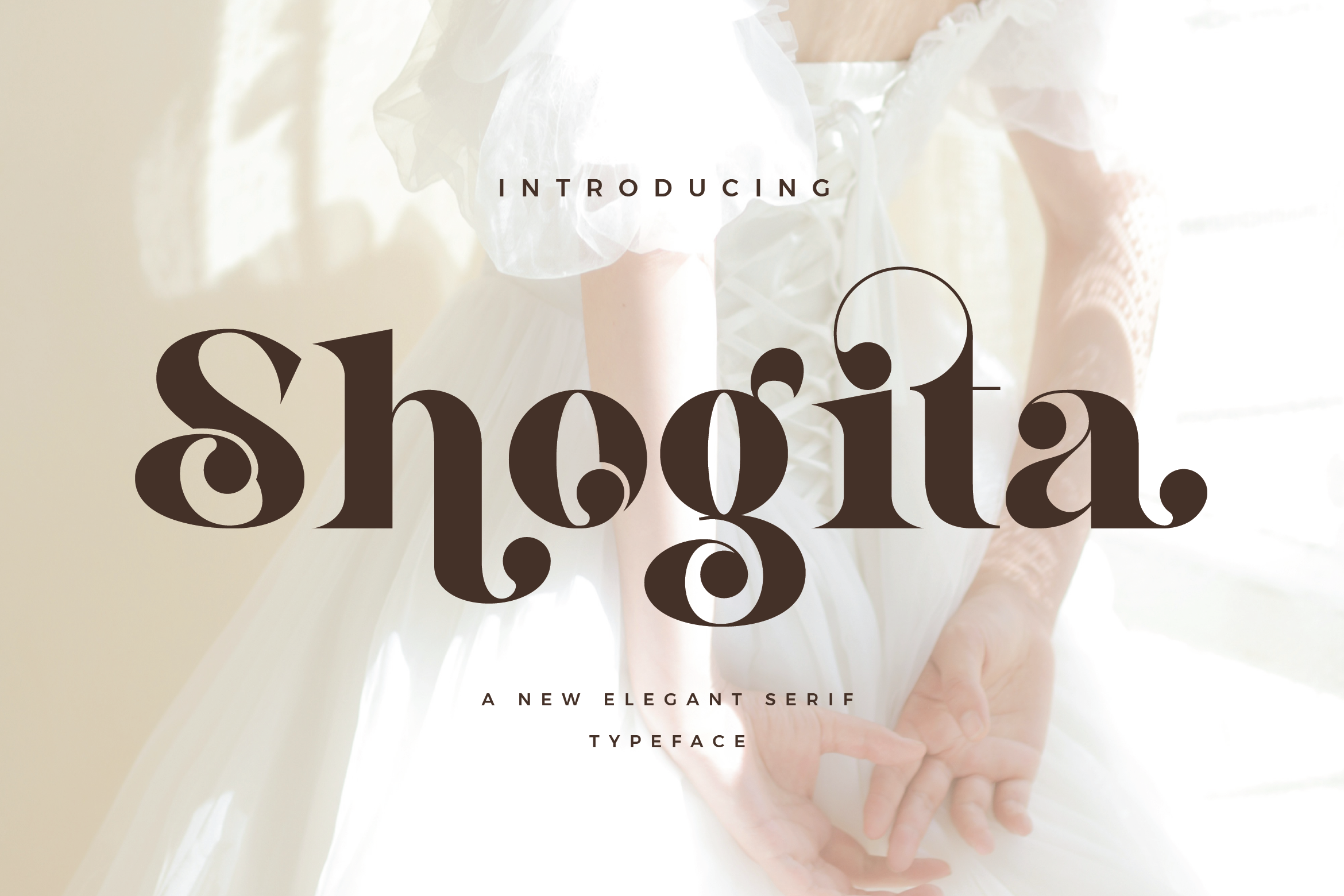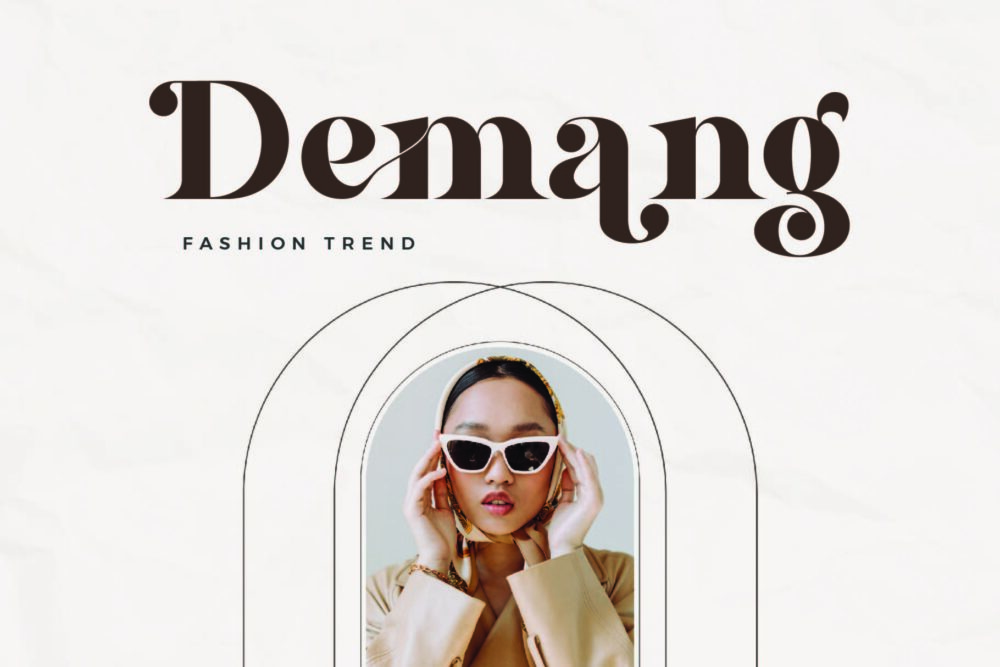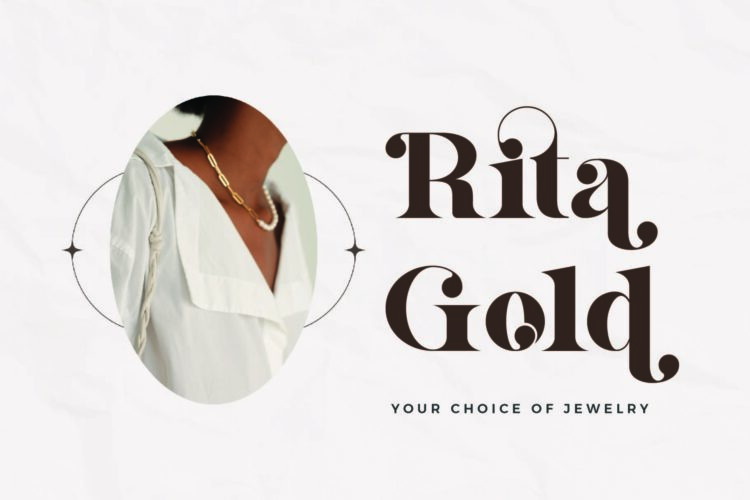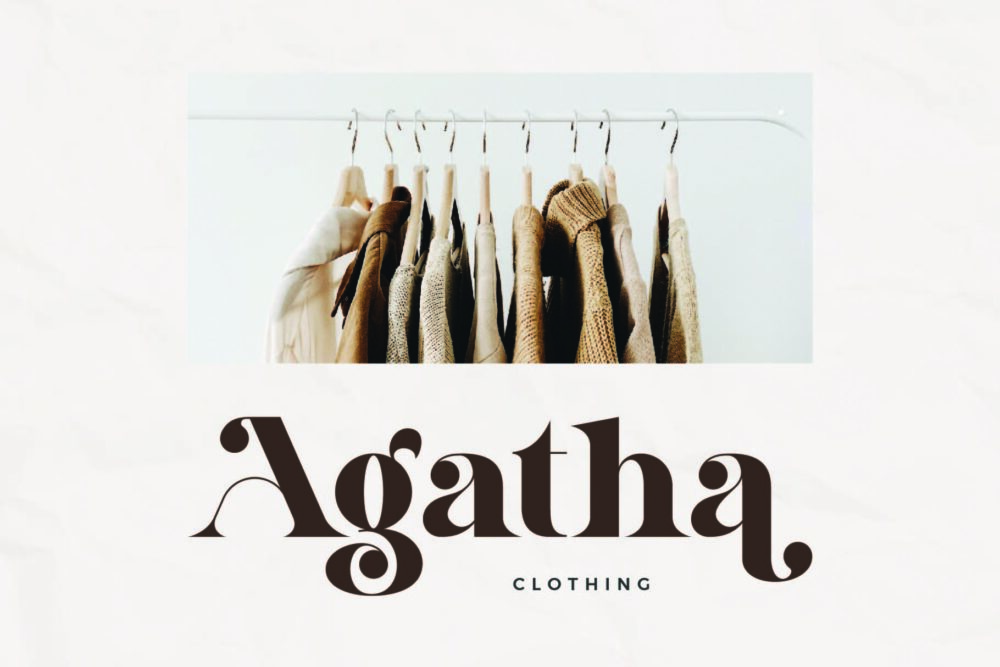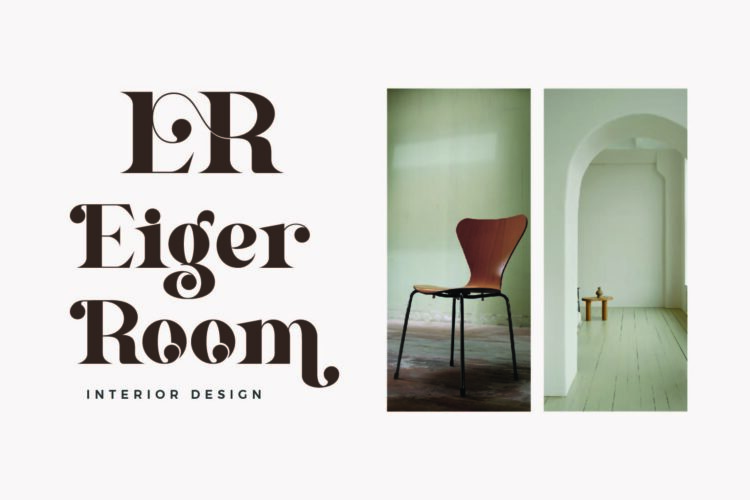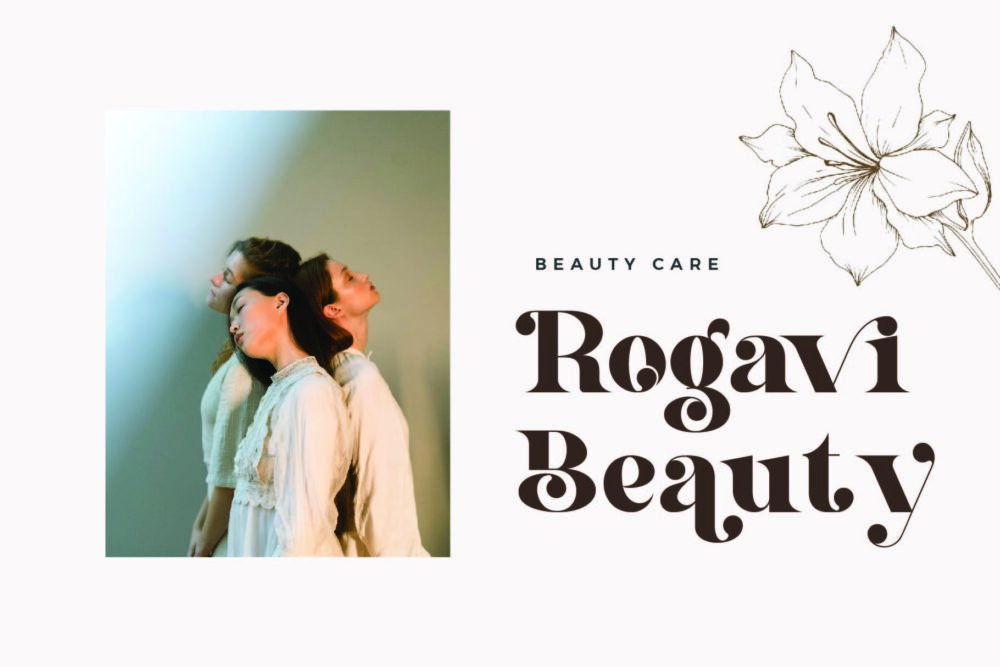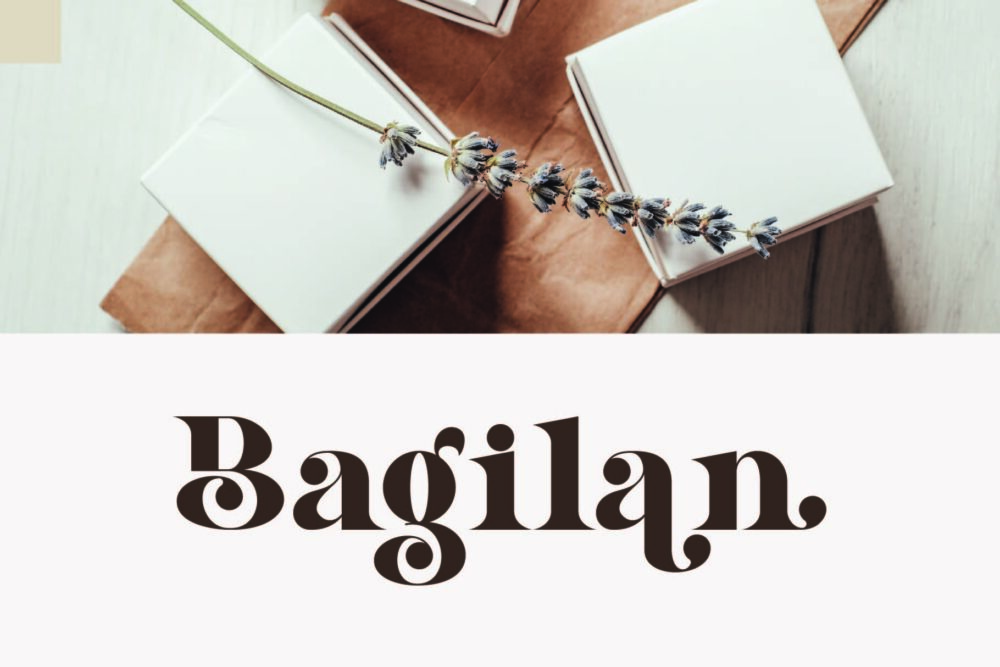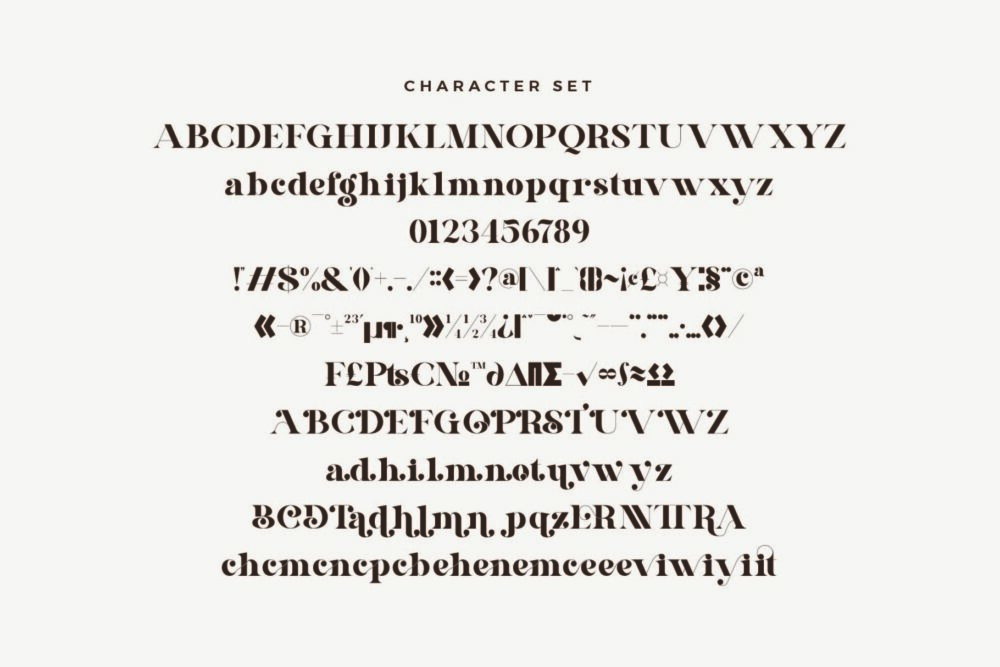
Shogita
Shogita Stylish Ligature Typeface, inspired by the famous minimalist logo perfect for the purposes of designing templates, brochures, videos, advertising branding, logos and more.
Shogita – Elegant Serif Font